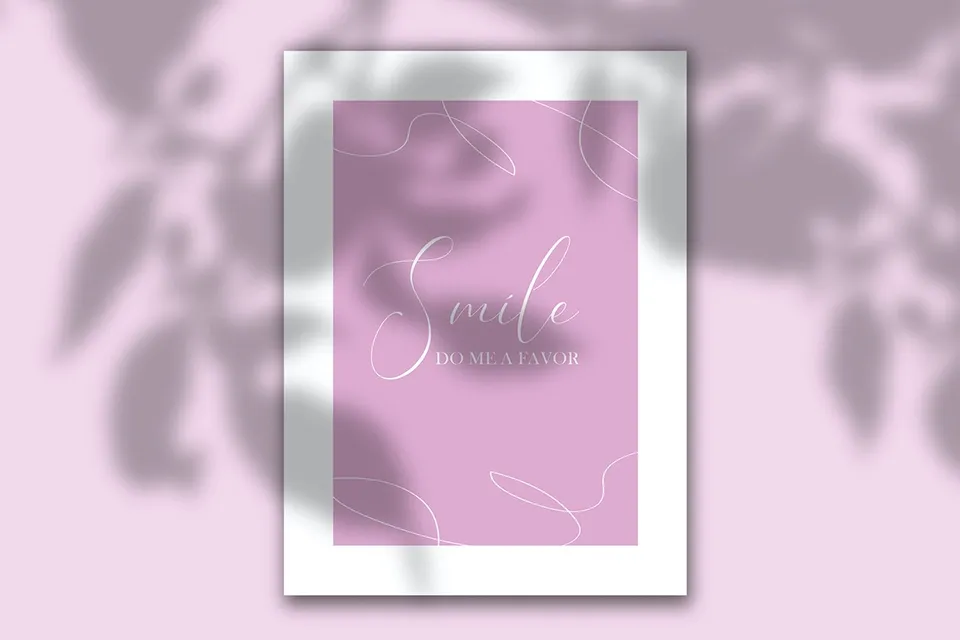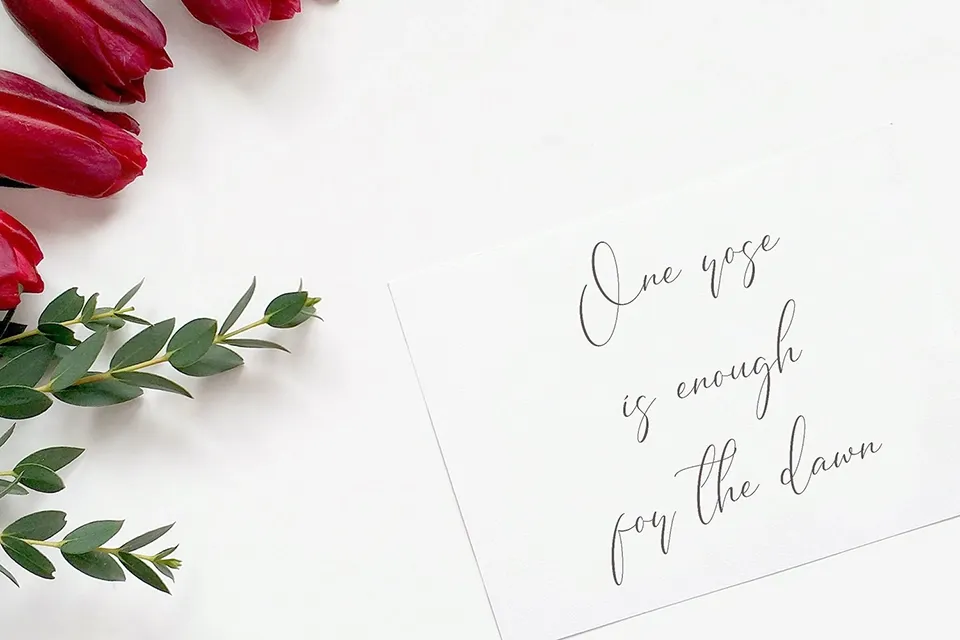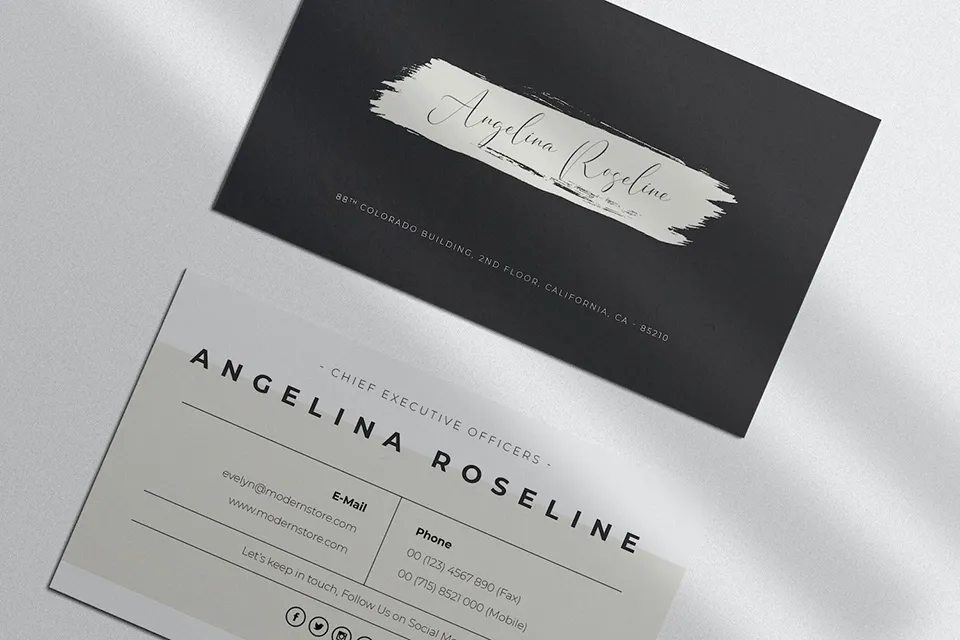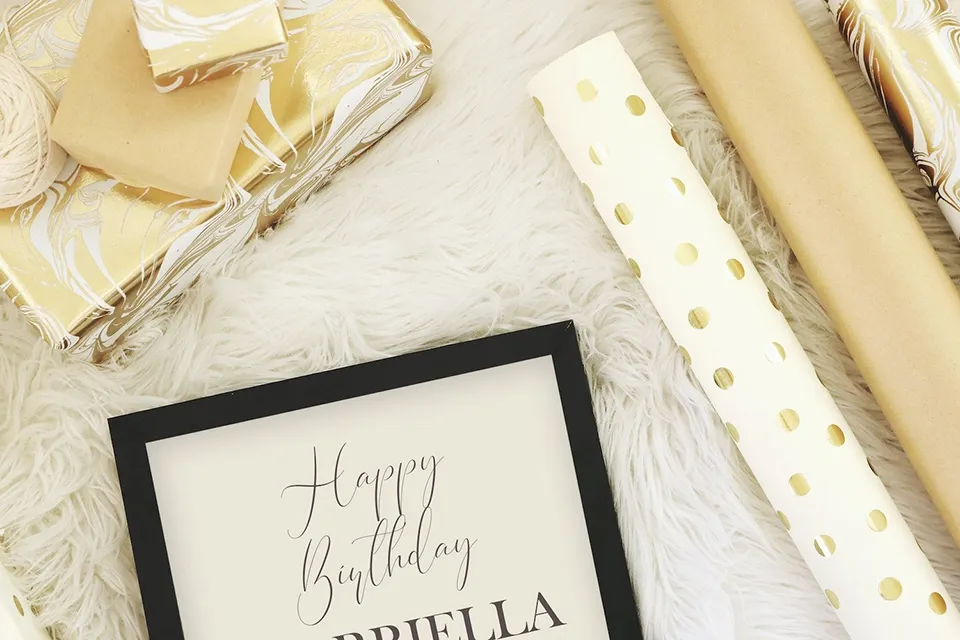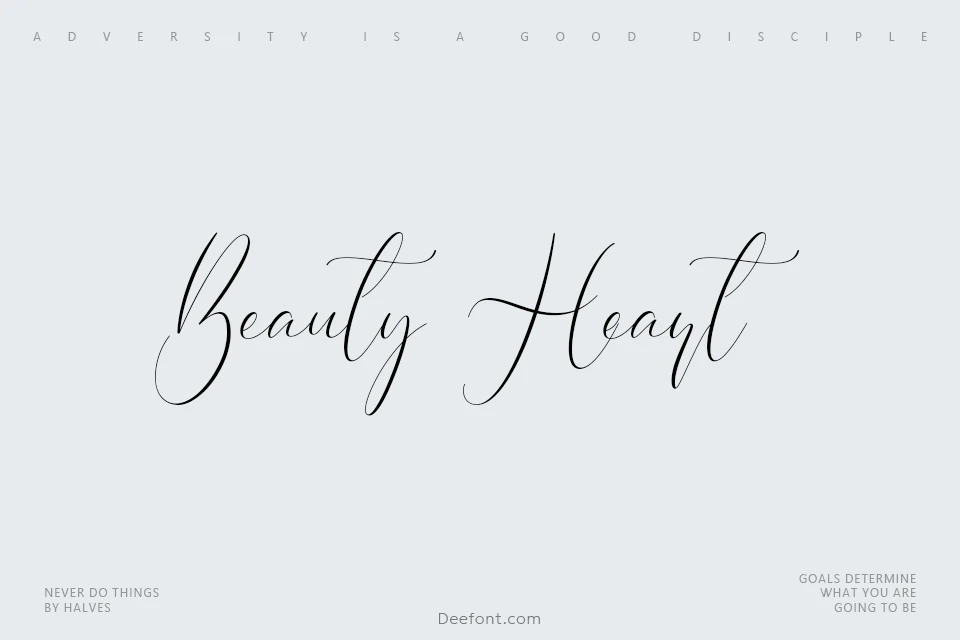
Beauty Heart Font
Beauty Heart Font Family is a lovely modern script typeface that exudes elegance and charm. With its delicate, flowing letterforms and graceful curves, this font is perfect for adding a touch of sophistication to your creative projects. Ideal for wedding invitations, branding, logos, greeting cards, and social media designs, Beauty Heart combines timeless beauty with a contemporary flair. Its versatile style ensures it works seamlessly in both formal and playful settings. Whether used for bold headlines or intricate details, Beauty Heart Font Family brings a sense of romance and refinement to every design. Elevate your creations with this stunning typeface!